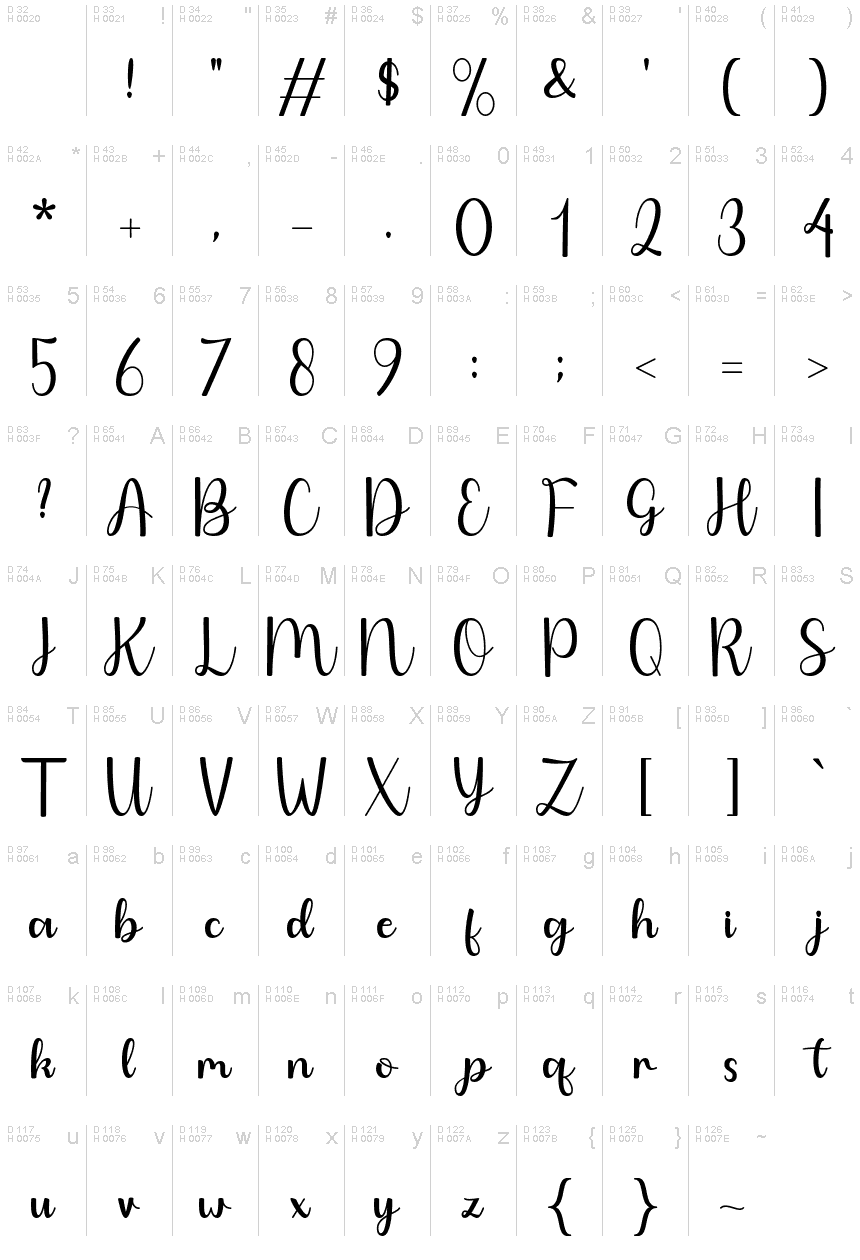
Hot Chicken
Hot Chicken, designed by Hardiboy Design, is a captivating calligraphy font that brings elegance and sophistication to your projects.
With its semi-light weight, this font exudes a delicate charm that is perfect for wedding invitations, feminine branding, and stylish packaging designs. Its graceful curves and intricate strokes add a touch of romance to any project, making it ideal for love letters or poetry books.
Let Hot Chicken's flowing lines and unique character set the stage for your next creative endeavor.